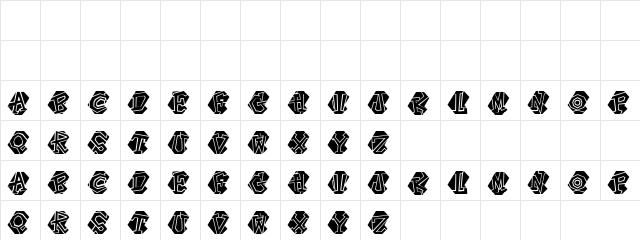
Pentagonal Fonts Regular
Pentagonal Fonts is a composed and adaptable typeface that performs quietly and consistently across a wide range of design contexts.